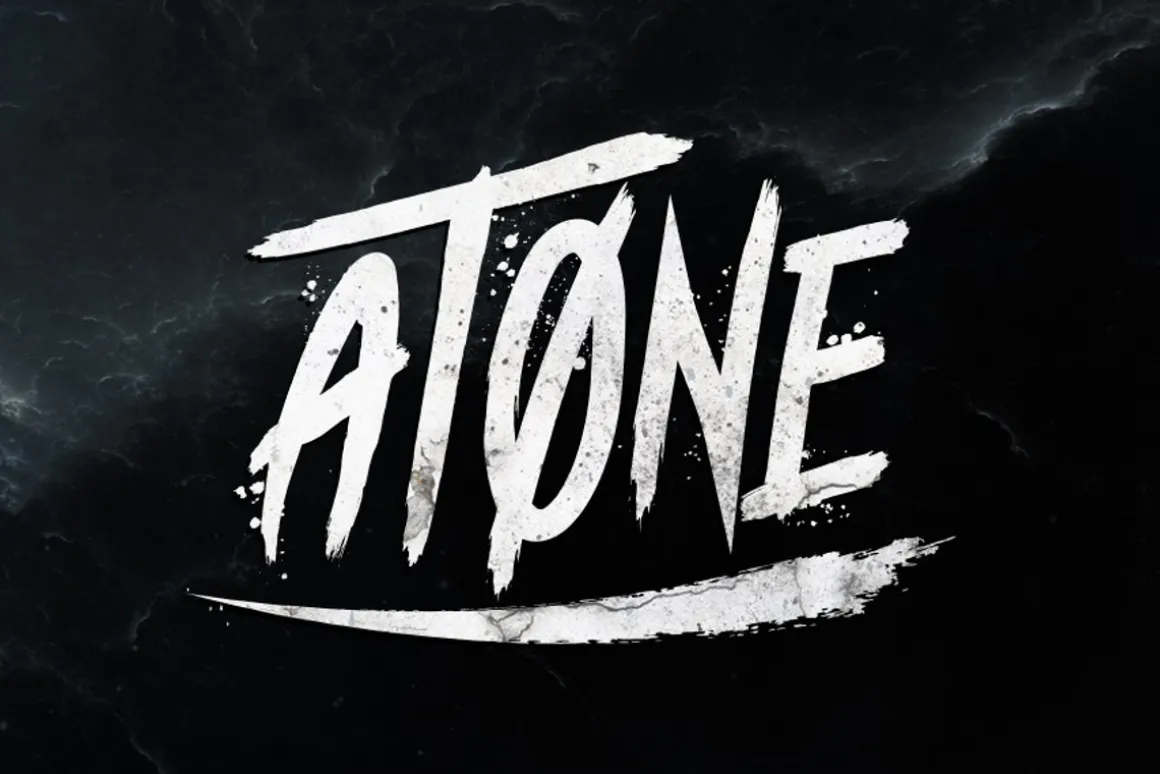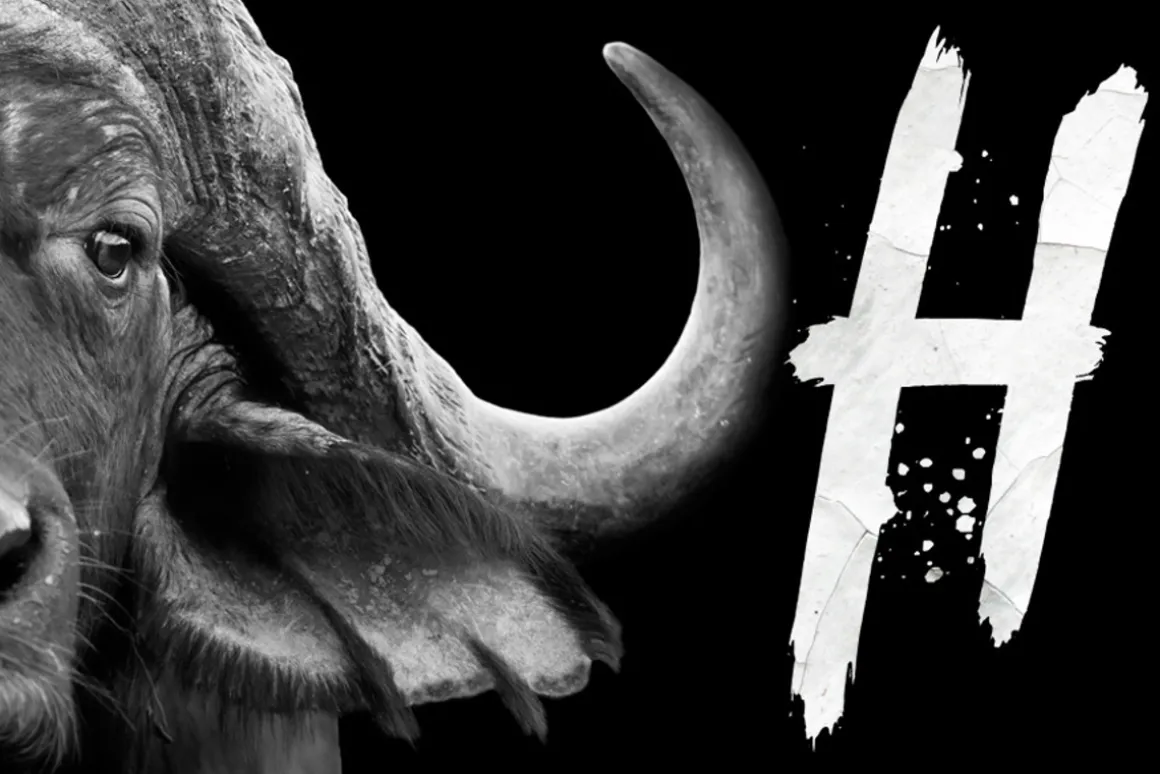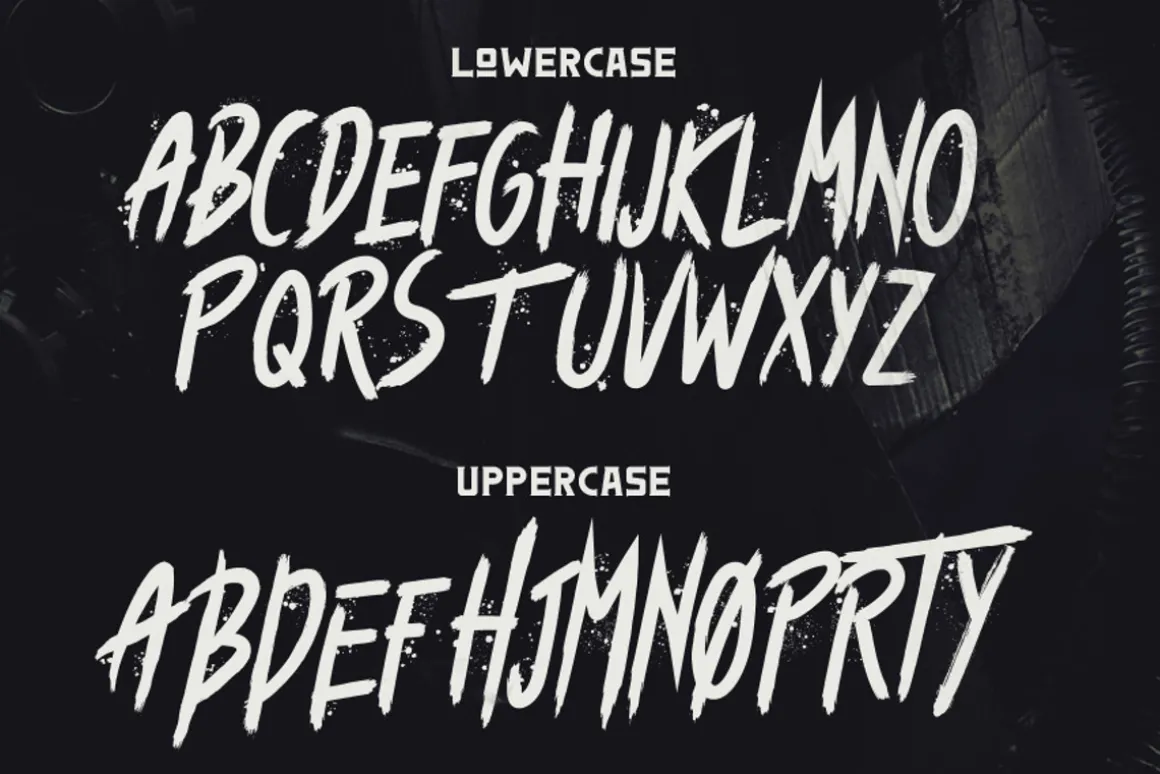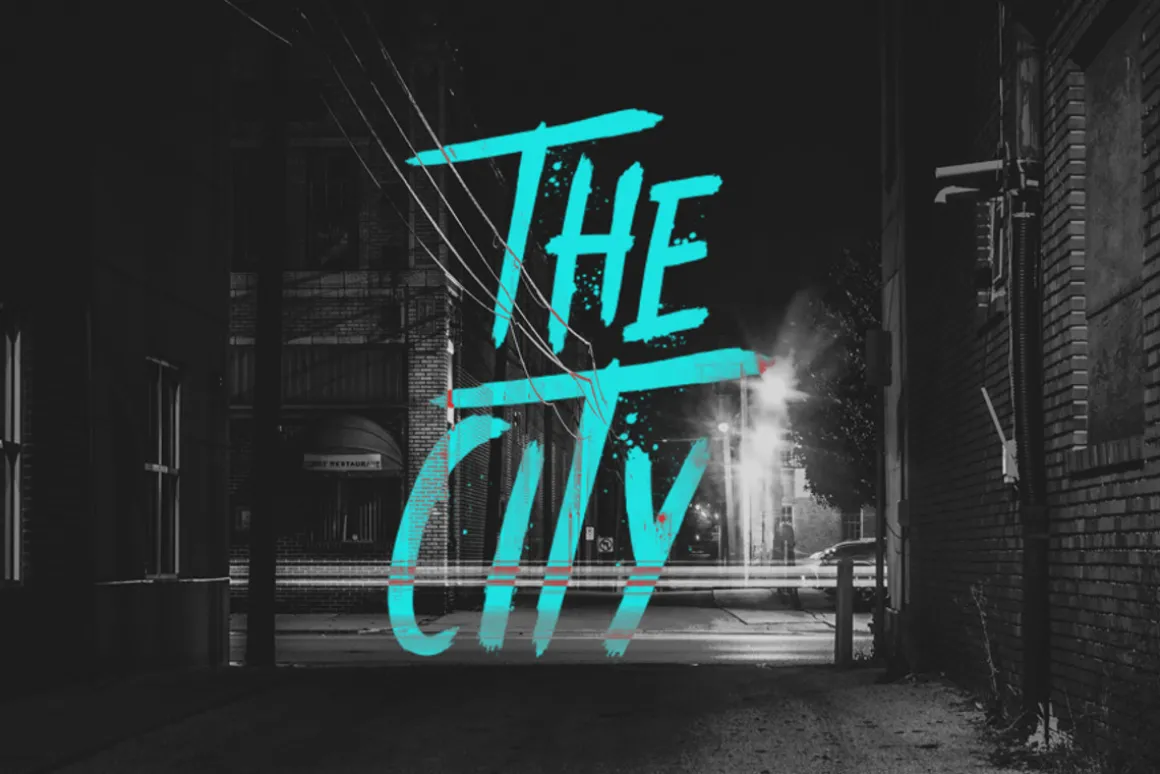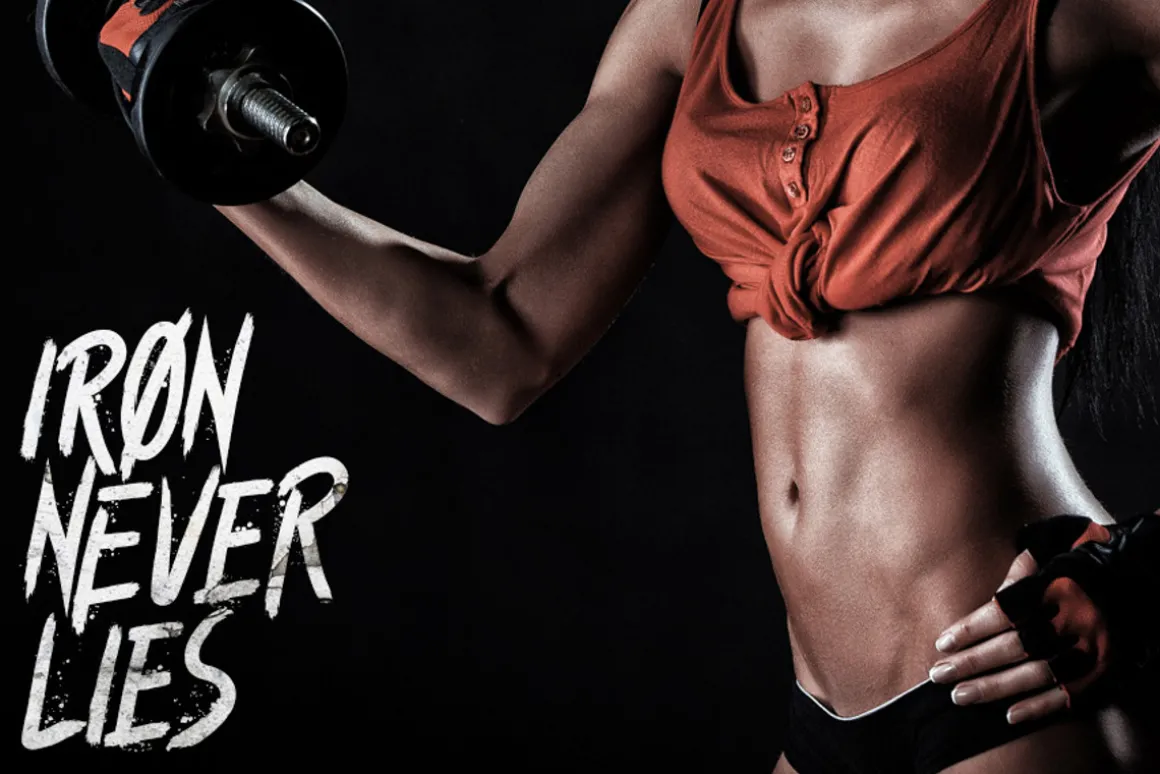
Atone is a brush font with English uppercase letters, alternate letters, numbers and punctuation. Some letters have alternate versions which you can toggle with Caps Lock, as seen on the second screenshot.